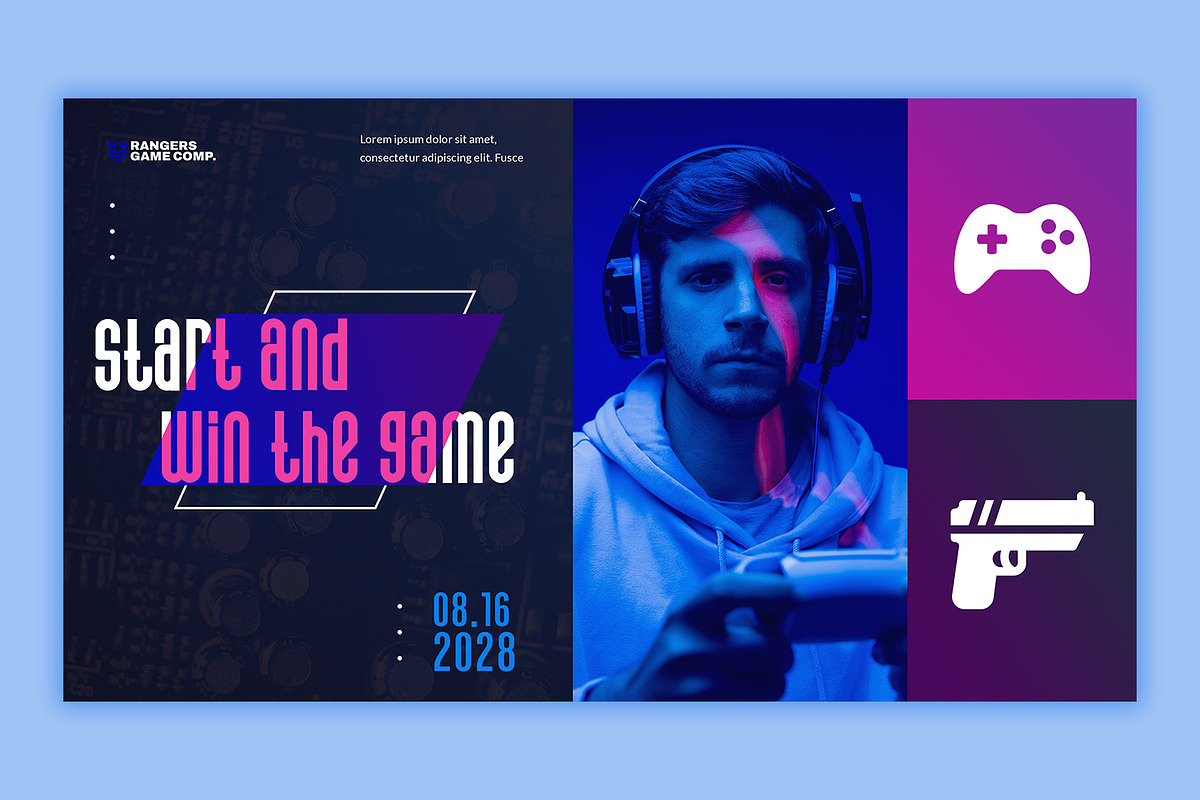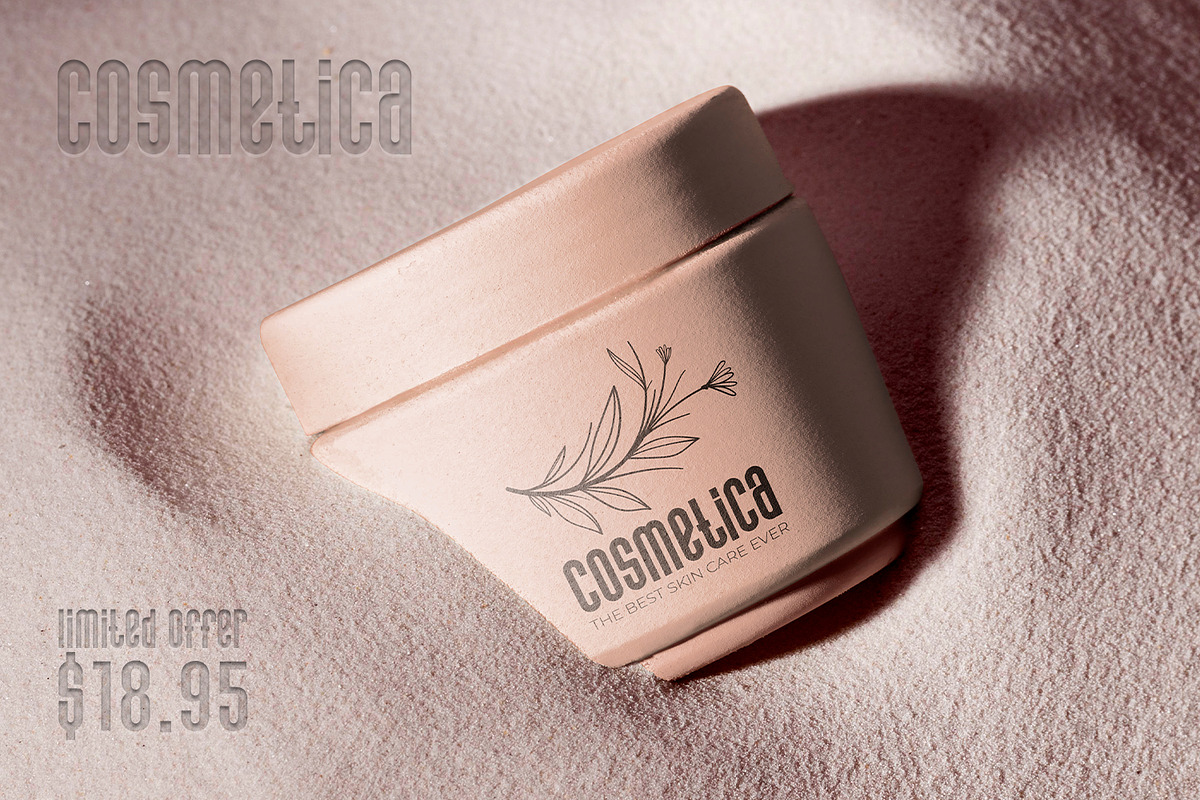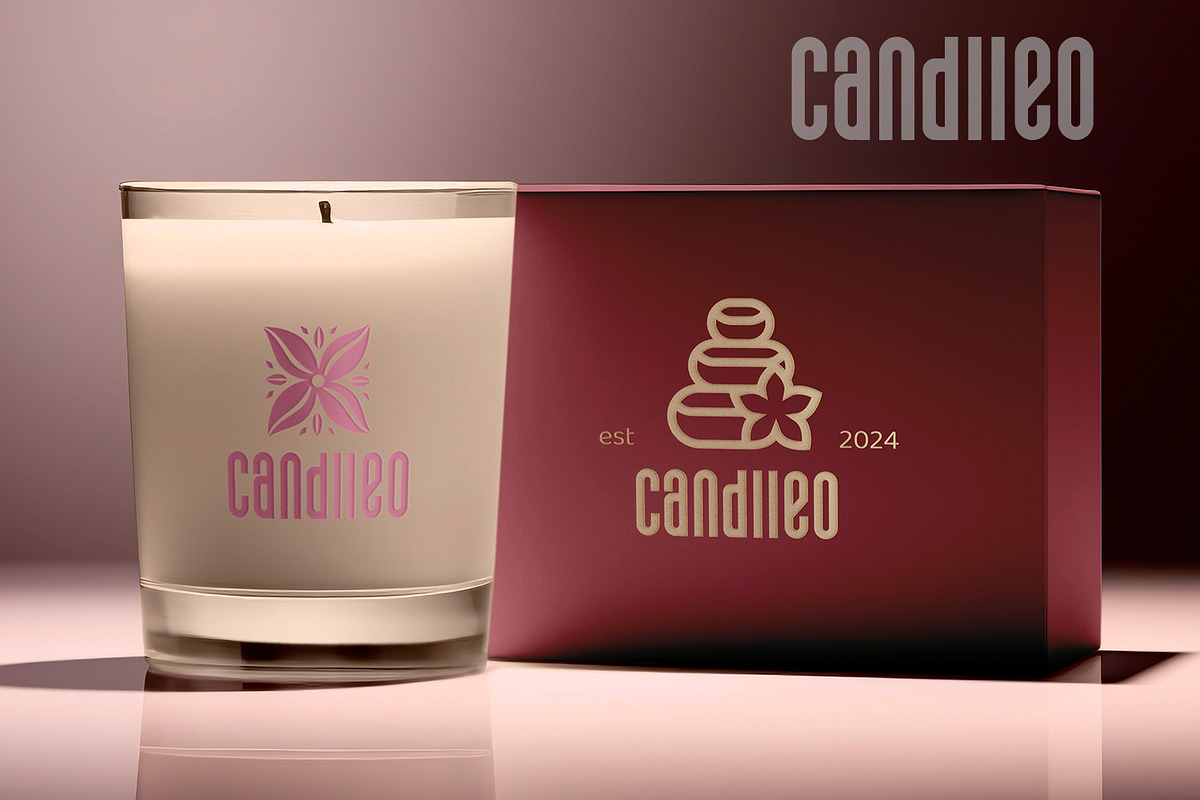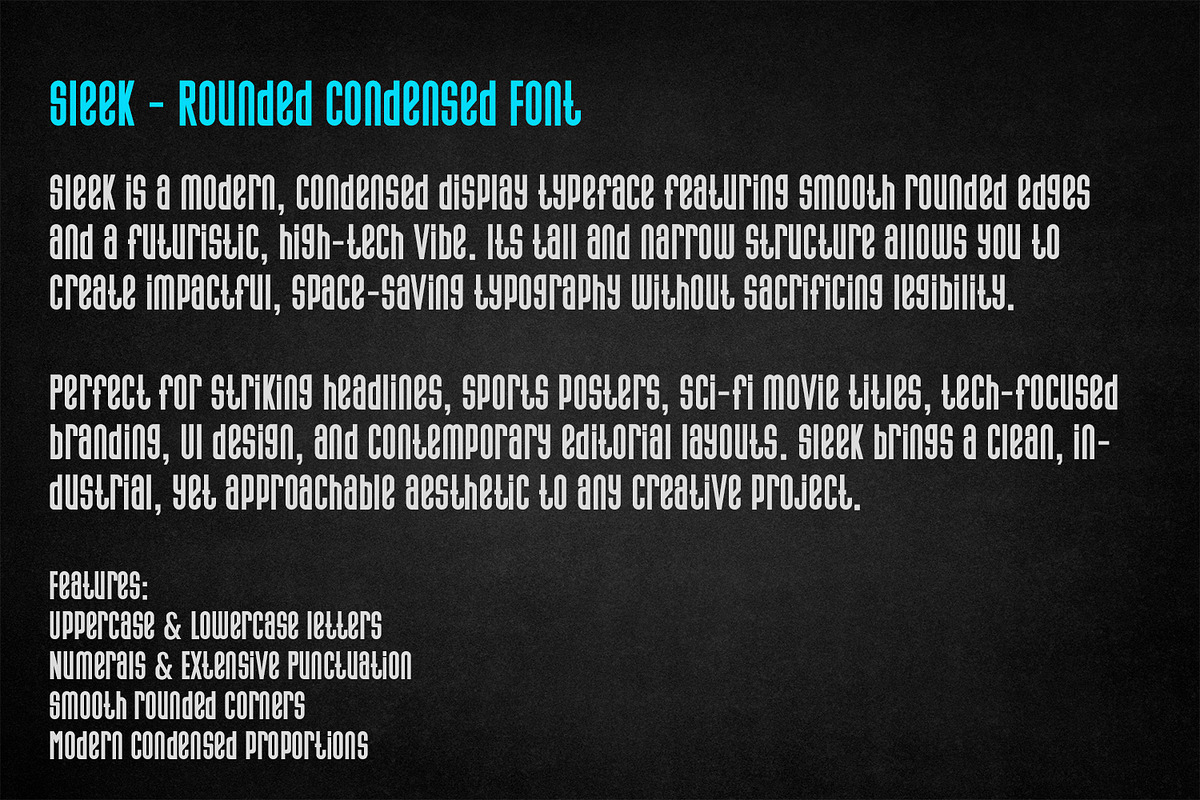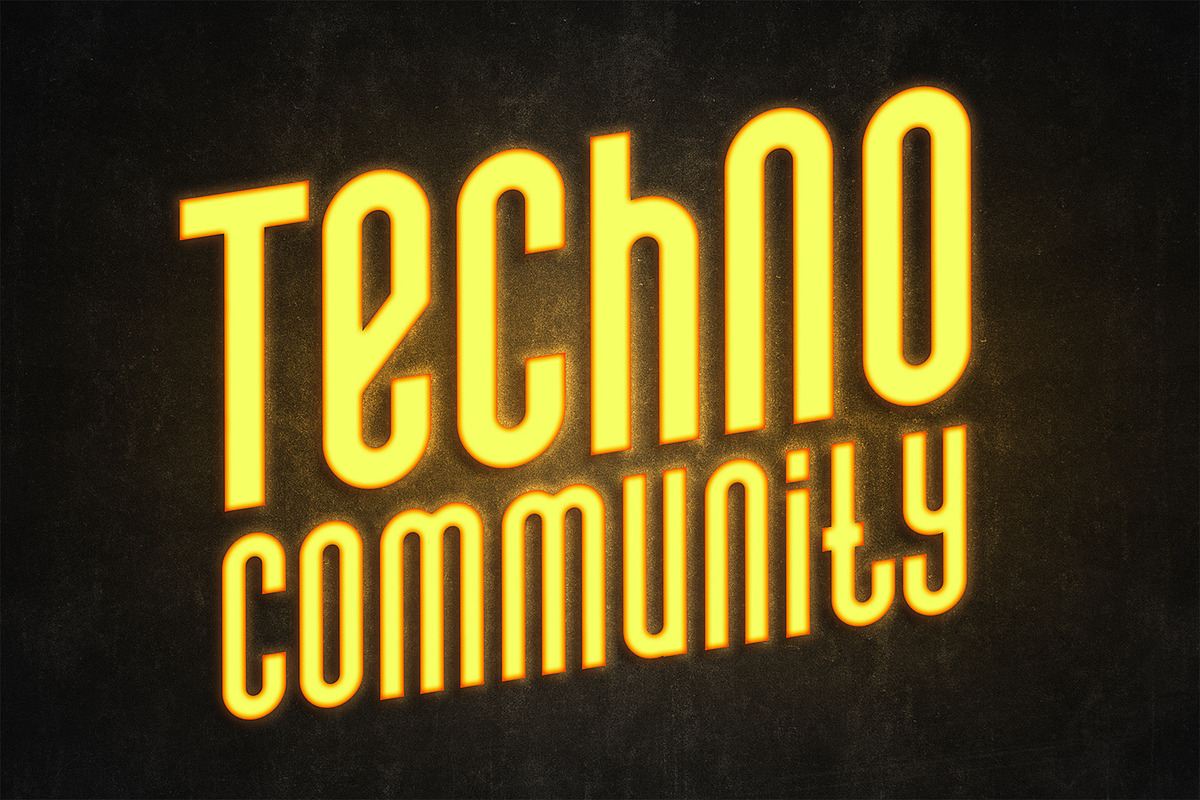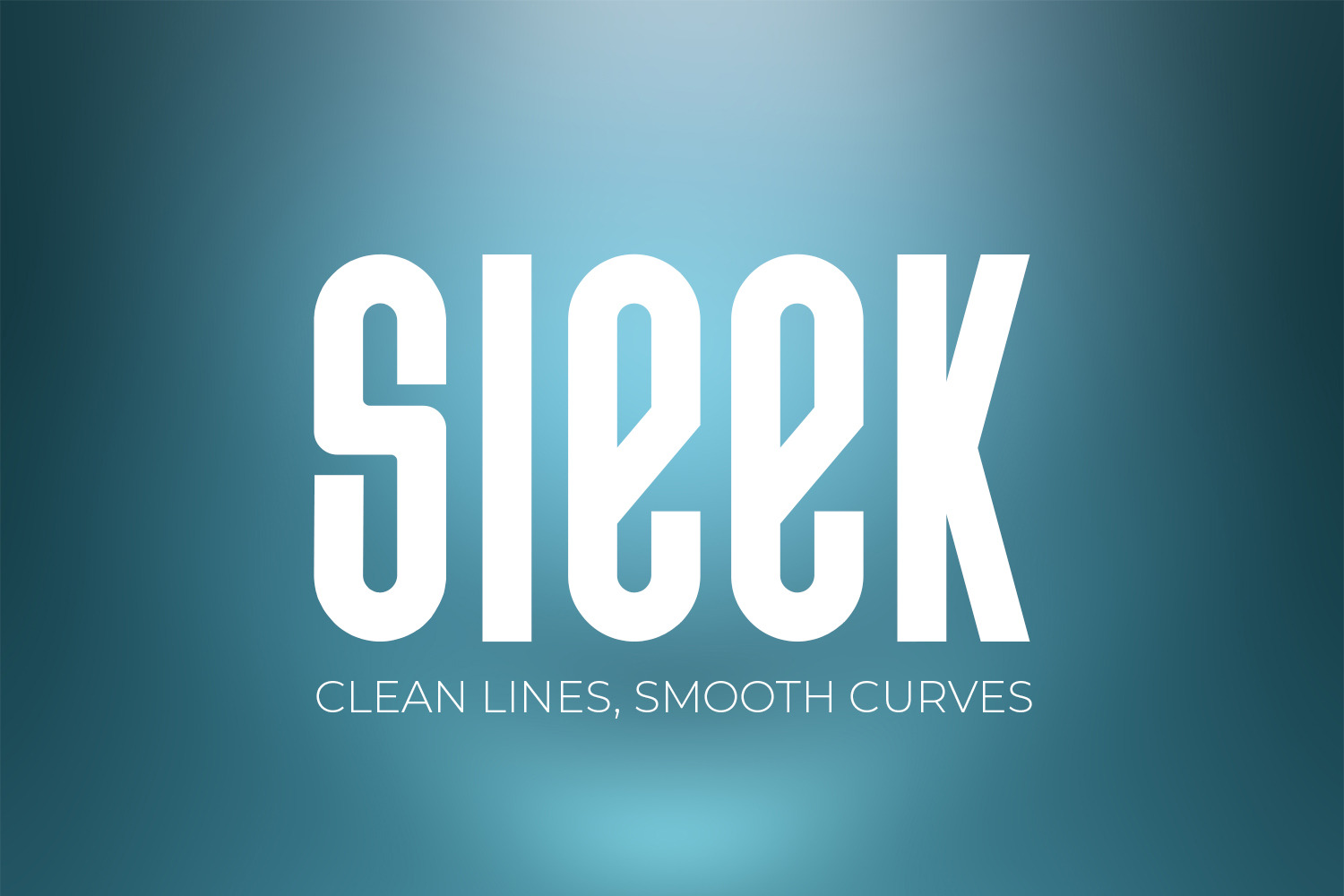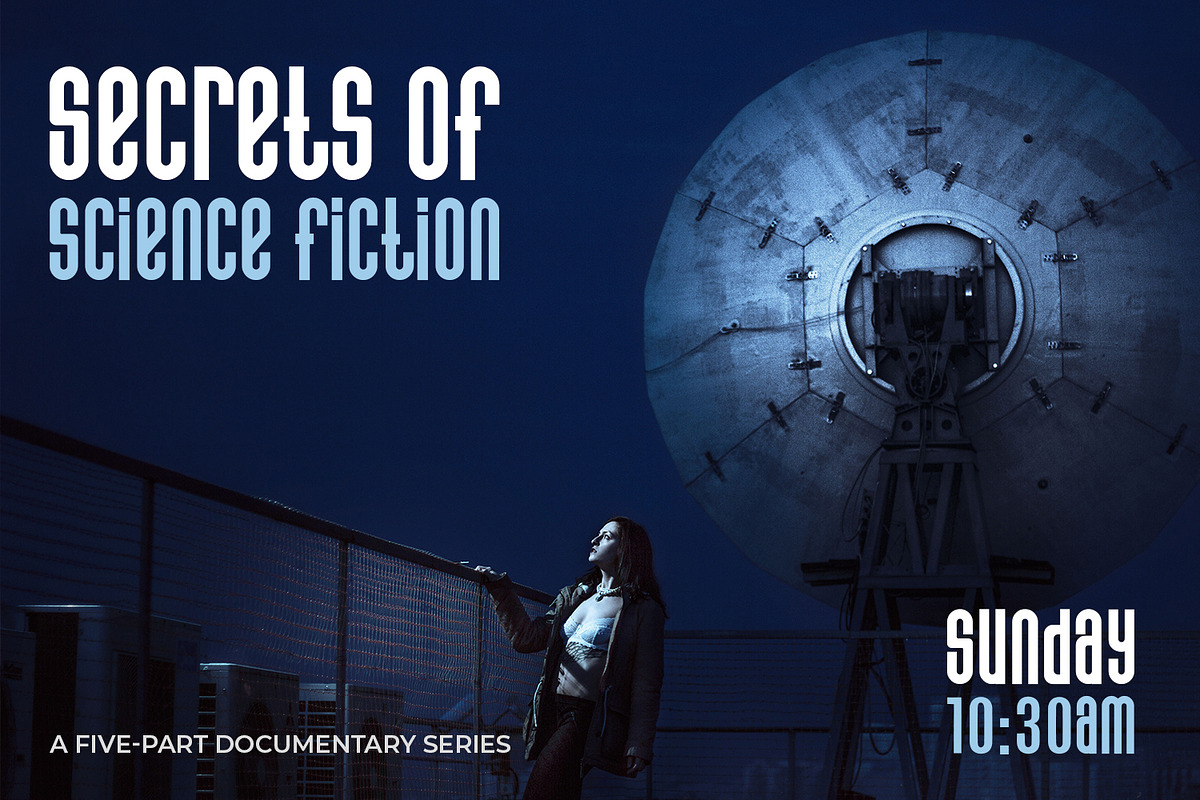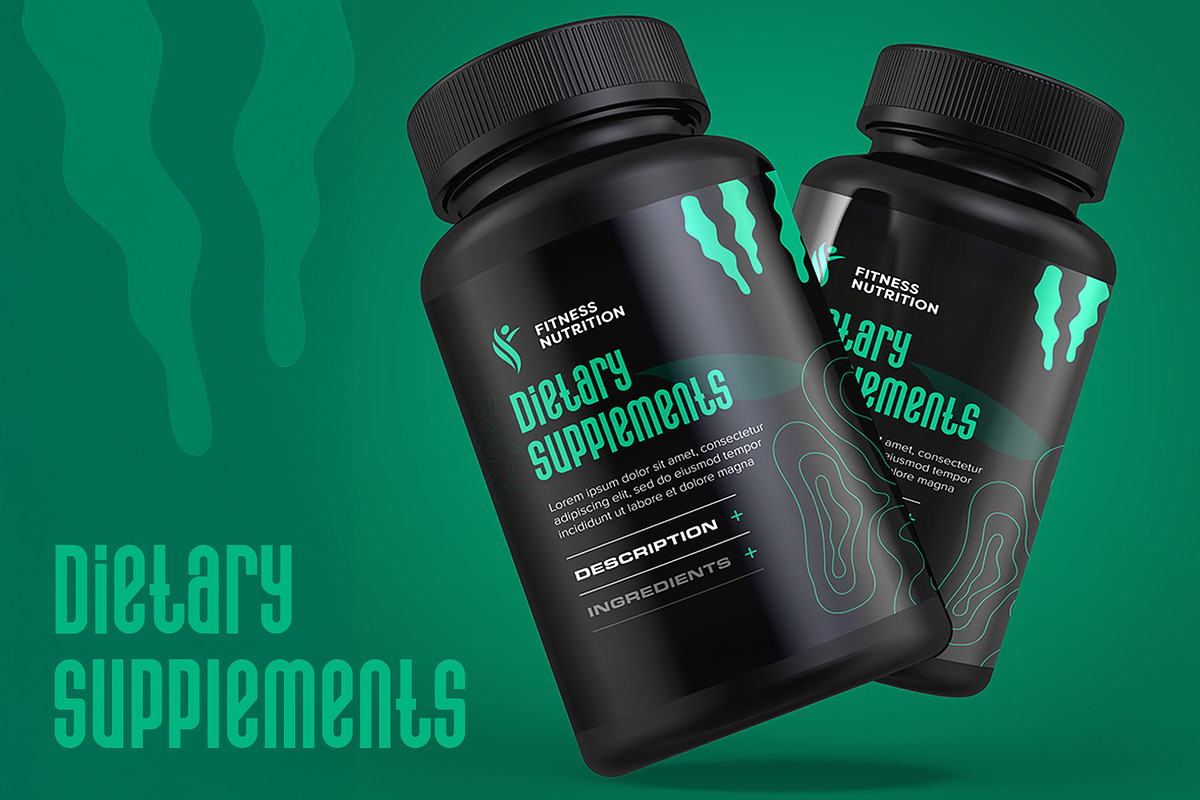
Sleek Modern Rounded Condensed Font
Sleek is a modern, condensed display font featuring clean lines and smooth, rounded curves. Designed for maximum versatility, its tall and narrow structure makes it perfect for striking headlines, futuristic sci-fi posters, tech branding, gaming interfaces, and elegant product packaging. Whether you are designing for dietary supplements, cosmetics, or digital communities, Sleek provides a highly legible, space-saving, and contemporary aesthetic to elevate your creative projects. The font includes a complete set of uppercase and lowercase letters, numerals, and extensive punctuation.